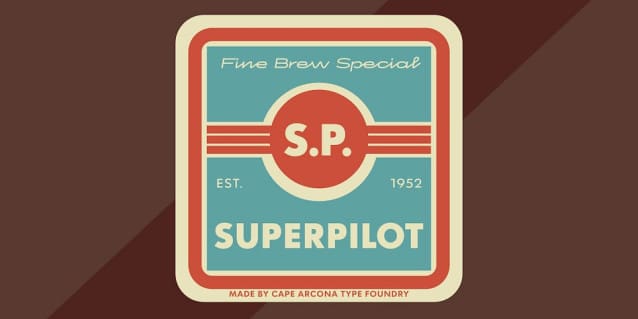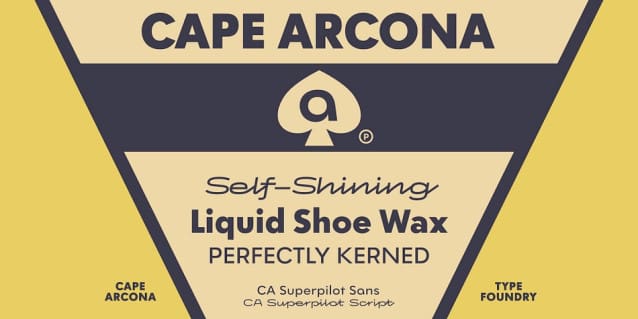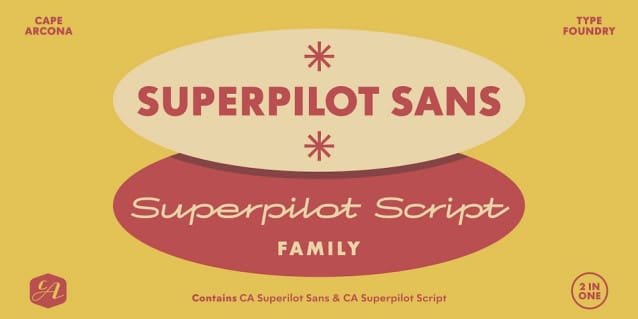
CA Superpilot Font Family
CA Superpilot Font Family –  Sans & Script family pairing – the ultimate package designed specifically for creatives and designers.
The CA Superpilot Sans font family, with its contemporary take on Futura, is the perfect choice for those seeking a sleek and modern typeface. With five weights and italics, this font is flexible enough to be used in any project. In addition, it includes an extensive Central European character set and alternate characters, ensuring that your designs will stand out in any language.
On the other hand, the CA Superpilot Script font family is a monoline script font that takes inspiration from vintage camera equipment logos and type designations from the 1950s. The result is a unique and retro-inspired typeface that adds personality and charm to any project. With regular and italic styles, you have plenty of options to work with. Despite being a script typeface, its bold strokes and clean lines make it ideal for captivating and impactful headlines in uppercase.